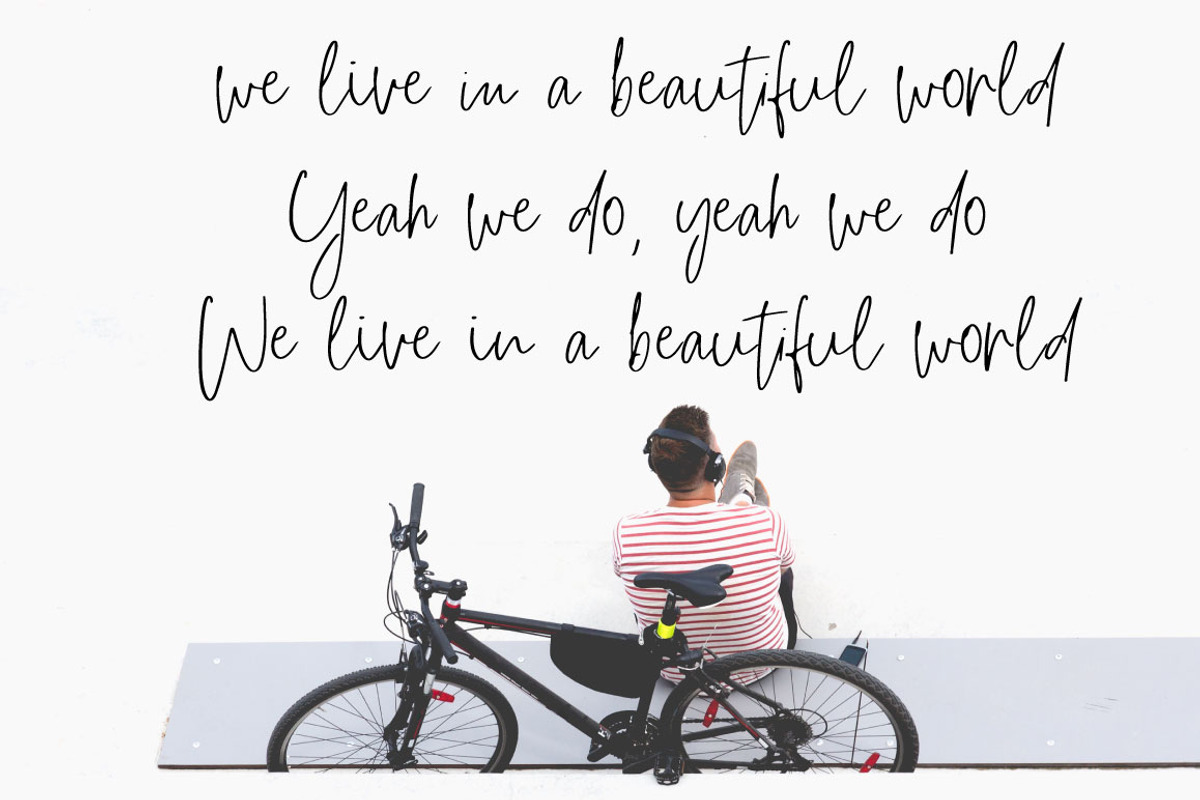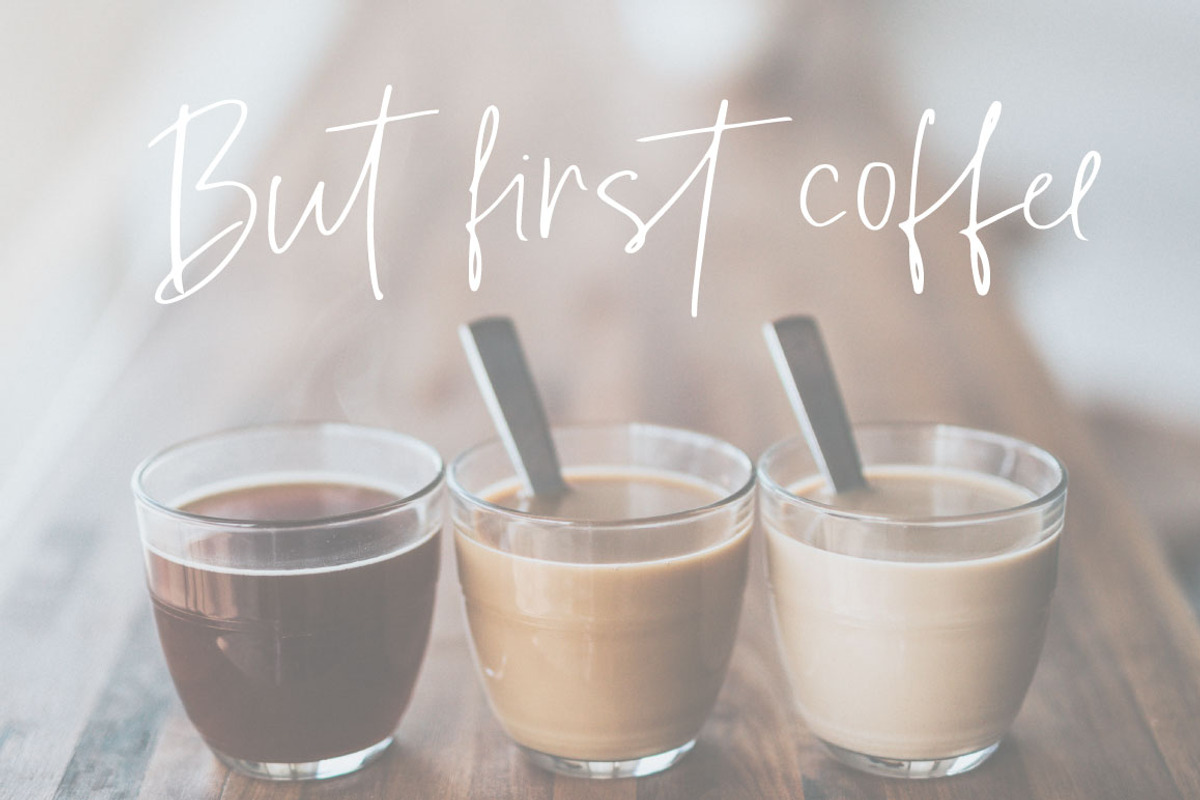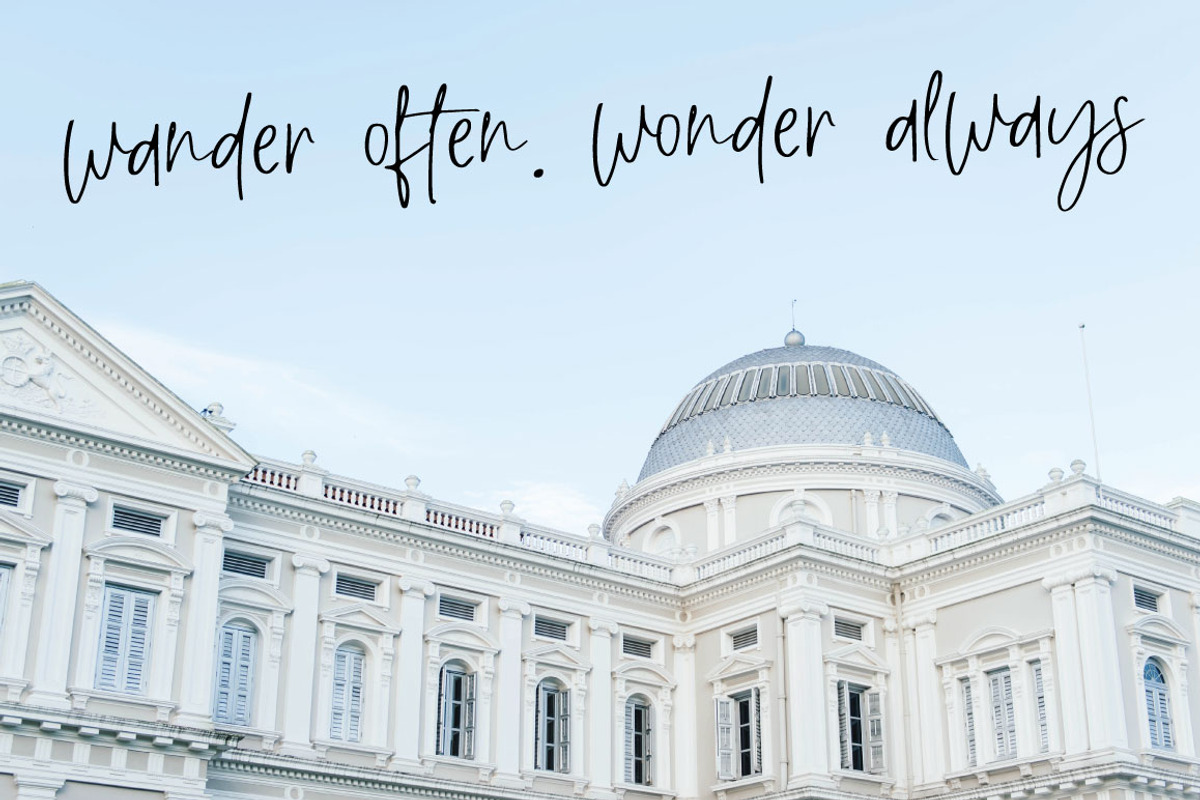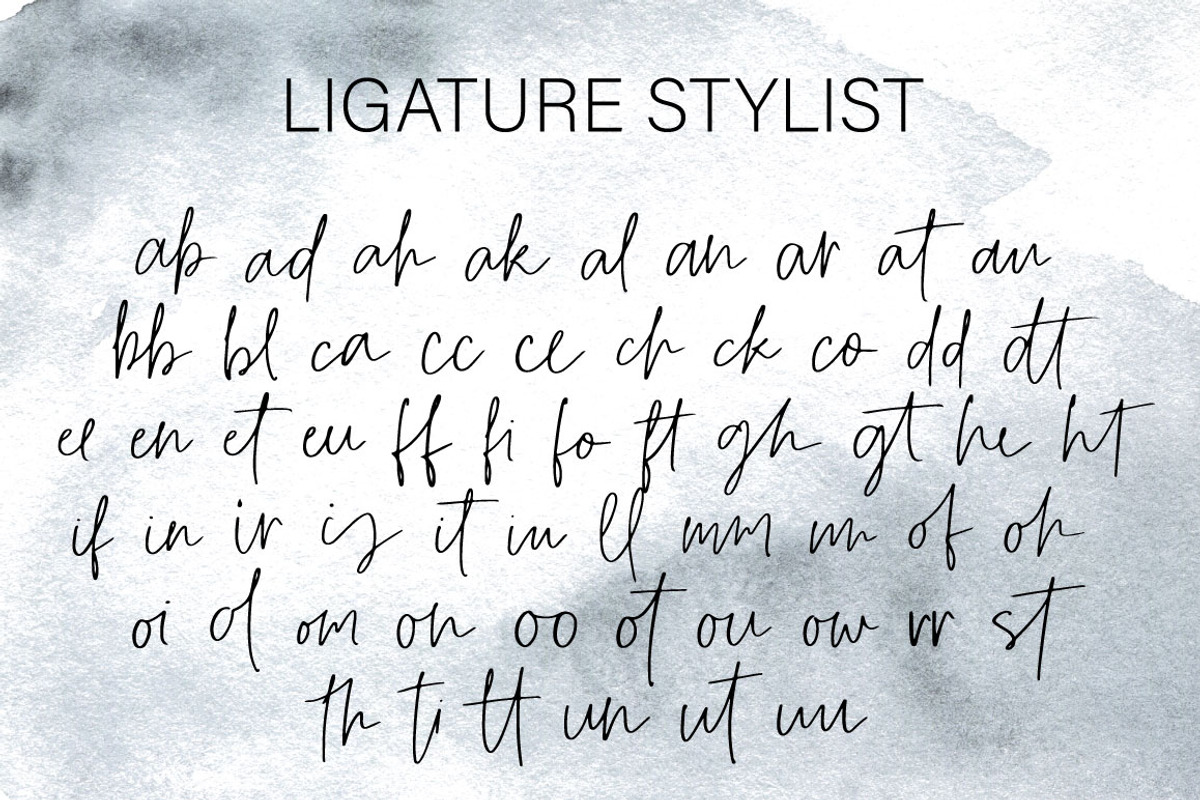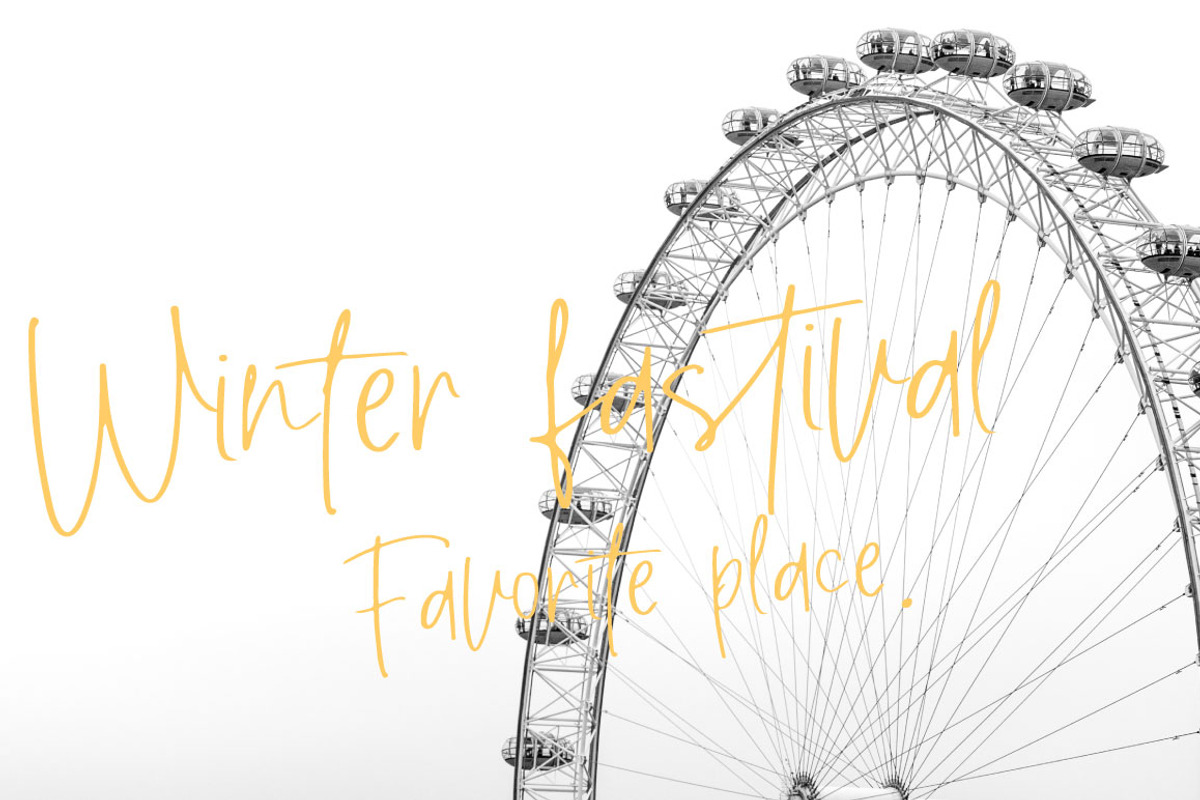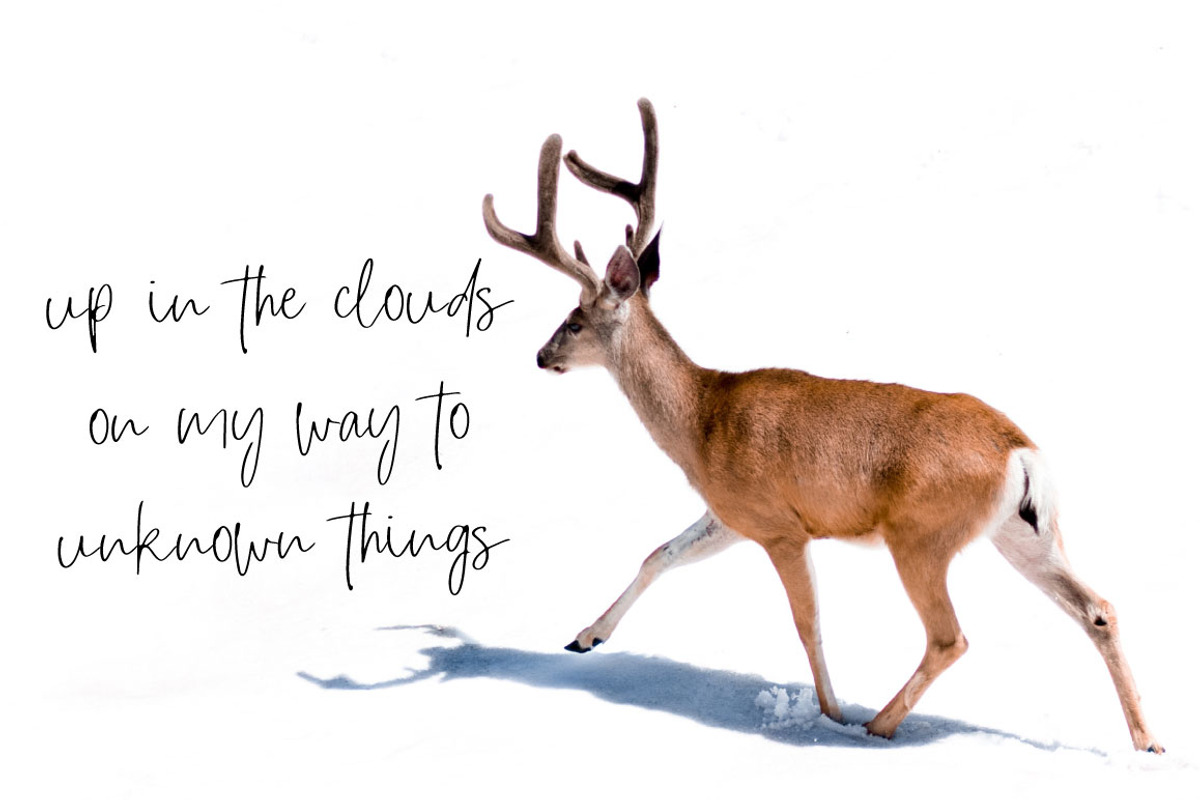
Roadtrip | Handwritten Font
Introducing Roadtrip - A Classic Stylist font perfect for high impact headlines
Every single letter has been creative carefully and Perfectly Playful new font pair. This font is a perfect script designed for making your set of invitations, Brand, blog posts, and more completely beautiful
"Roadtrip" Regular and Alt (uppercase & lowercase letters, numbers, punctuation and stylistic ligatures).
Roadtrip | Handwritten Font by Artstudio fits naturally into Branding, posters, packaging, typography.